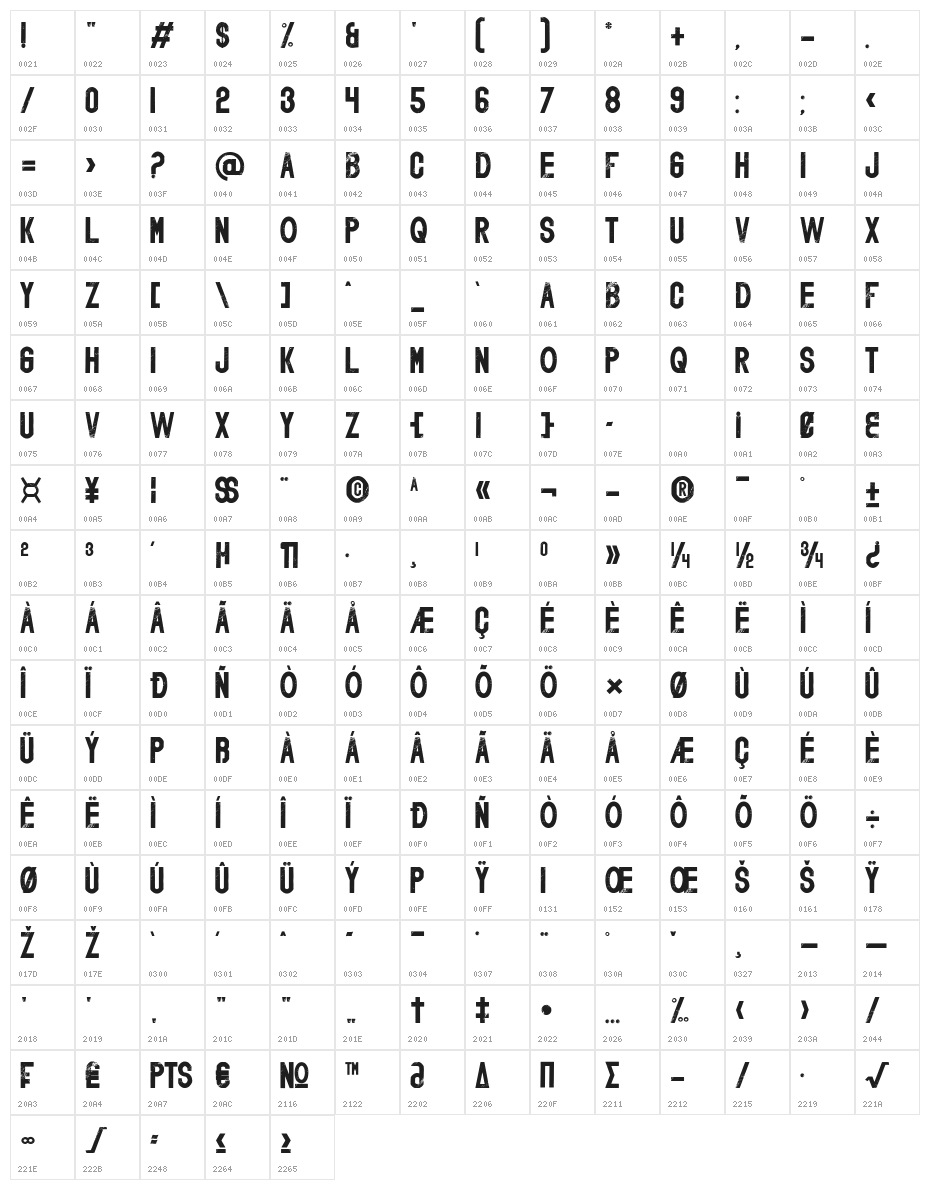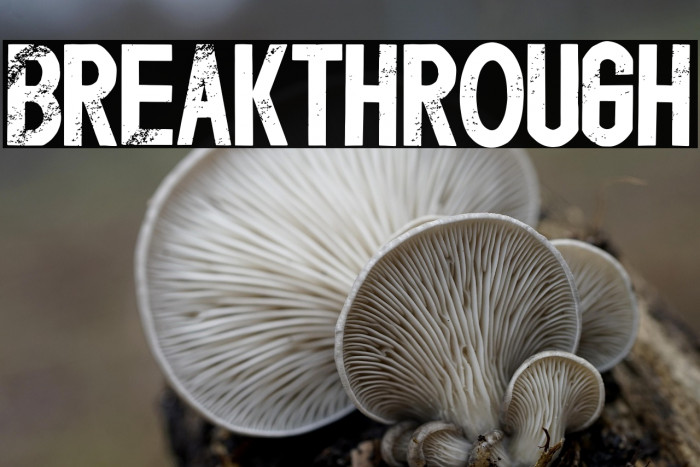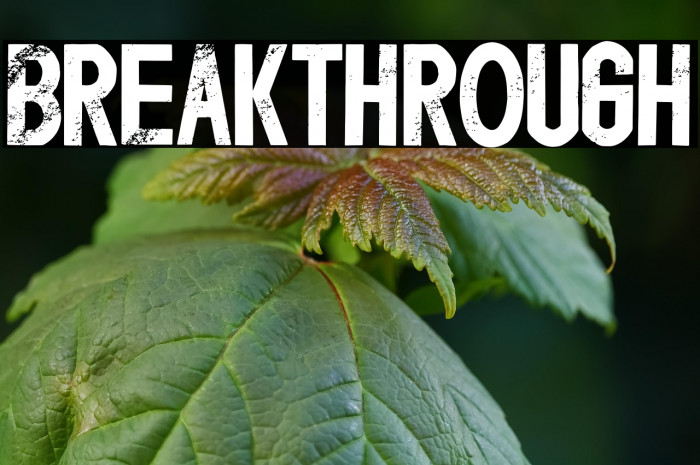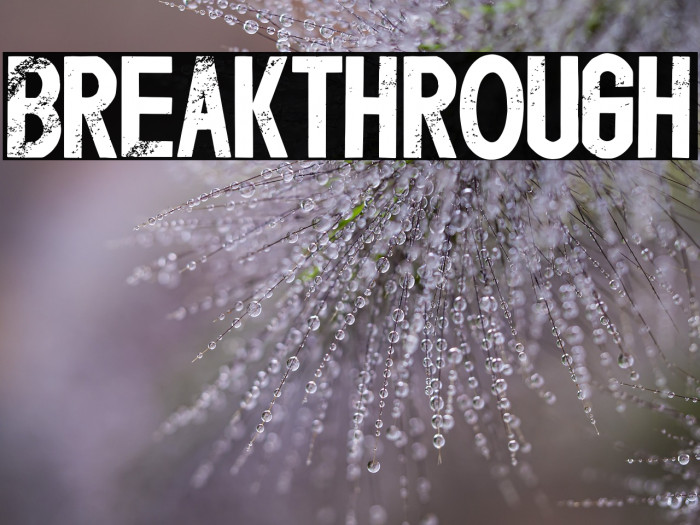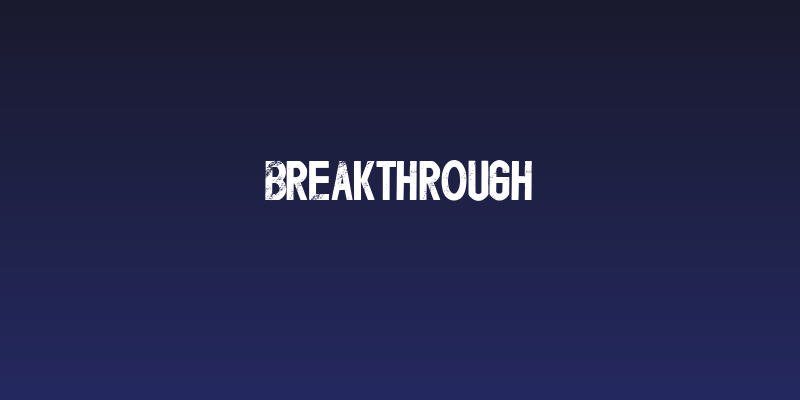
Breakthrough Font
Breakthrough Description
This font features a bold, distressed style with a rugged, textured appearance that gives it a vintage, worn-out look. The characters are all uppercase, with a consistent thickness that adds to its boldness. The texture within each letter creates a sense of depth and character, making it ideal for designs that require a strong, impactful presence. The numbers and special characters maintain the same distressed aesthetic, ensuring a cohesive look across all elements. This font is perfect for projects that aim to convey a sense of strength, authenticity, and timelessness.
| Overall Style | Vintage |
| Proposed Projects | Ideal for posters, album covers, branding, and any design needing a strong, vintage feel. |